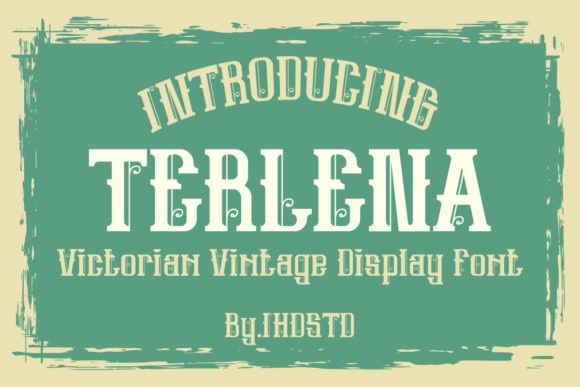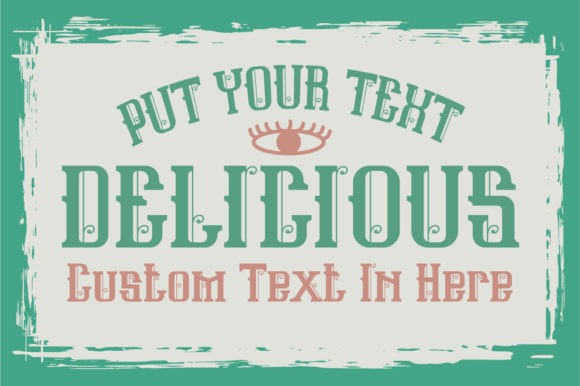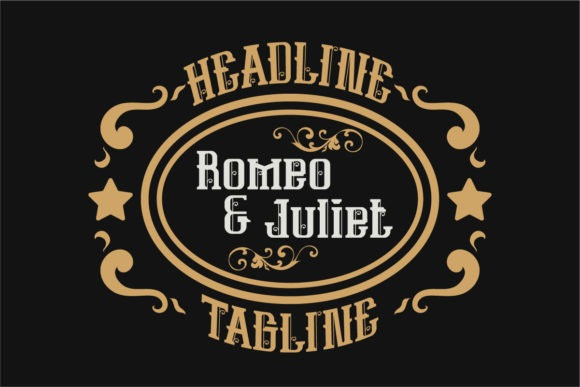
Terlena Font
Terlena is a victorian, vintage display font. It works great on labels, branding or pretty much anything that requires a bold, assertive touch.